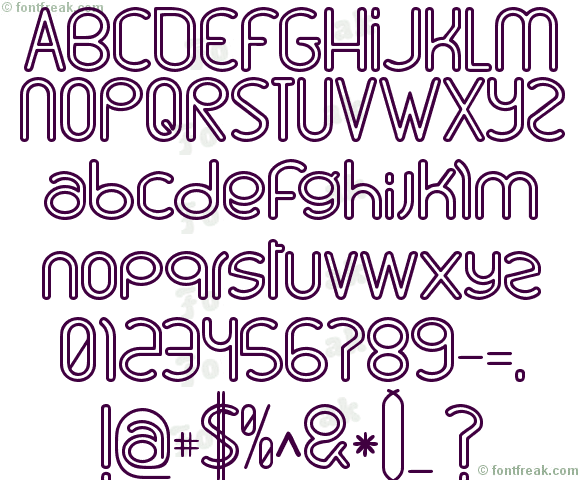
Linu
About Linu
The Linu font, designed by Alberto Villanueva, is a captivating sans-serif typeface that embodies modern elegance. With its clean lines and balanced proportions, this font exhibits a medium stroke weight that contributes to its versatility. The subtle contrast between thick and thin strokes adds a touch of sophistication, while the generous spacing between characters enhances readability. Linu’s minimalist aesthetic is complemented by its lack of unnecessary decorative elements, making it an ideal choice for a variety of applications.
The Linu font excels in several specific use cases. It is particularly well-suited for restaurant menus, where clarity and style are paramount. Its contemporary look makes it an excellent choice for branding materials, such as logos and business cards, helping small business owners create a memorable identity. Additionally, Linu works beautifully for website headers and digital content, providing an engaging visual appeal that captures attention. Graphic designers will find it ideal for promotional materials, such as flyers and advertisements, where striking typography can make a significant impact.
What sets the Linu font apart is its ability to blend simplicity with sophistication. It offers designers a reliable tool to elevate their creative work while maintaining a modern edge. With the Linu font free download available, users can seamlessly integrate this exceptional typeface into their projects, enhancing both visual appeal and overall impact.